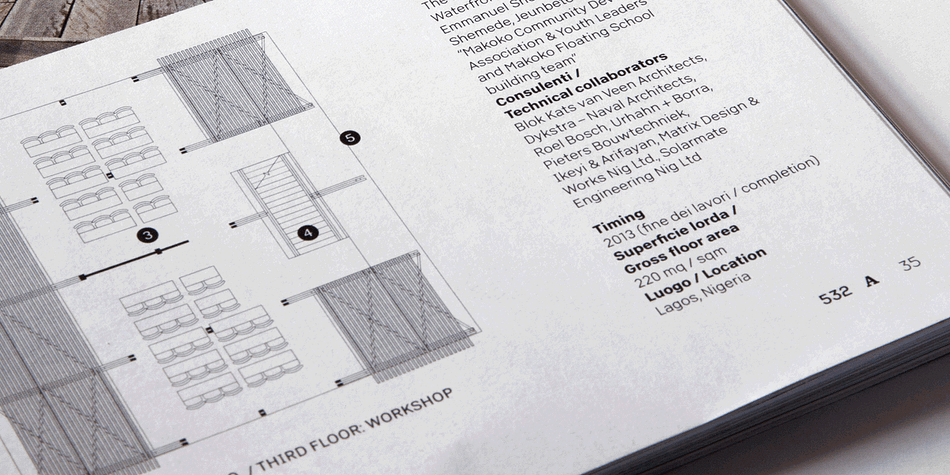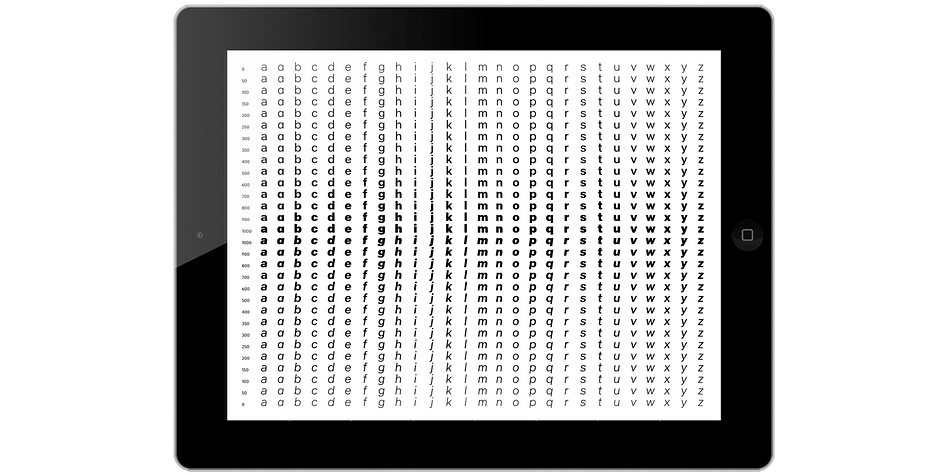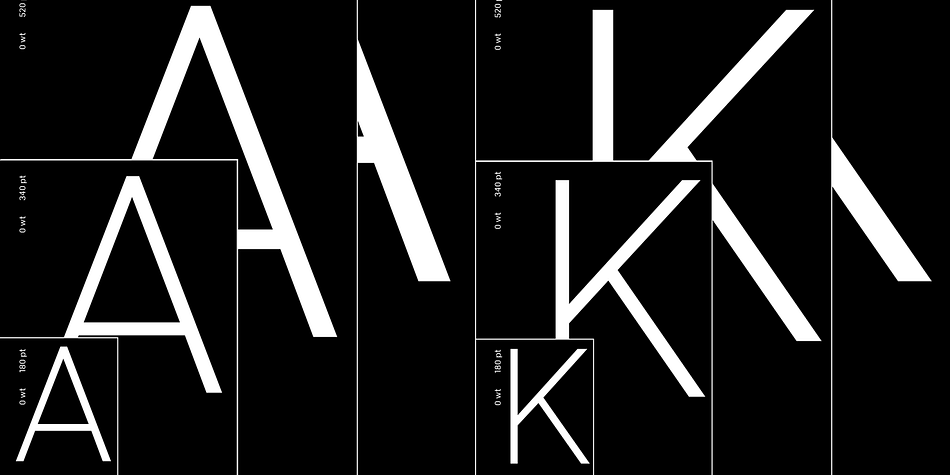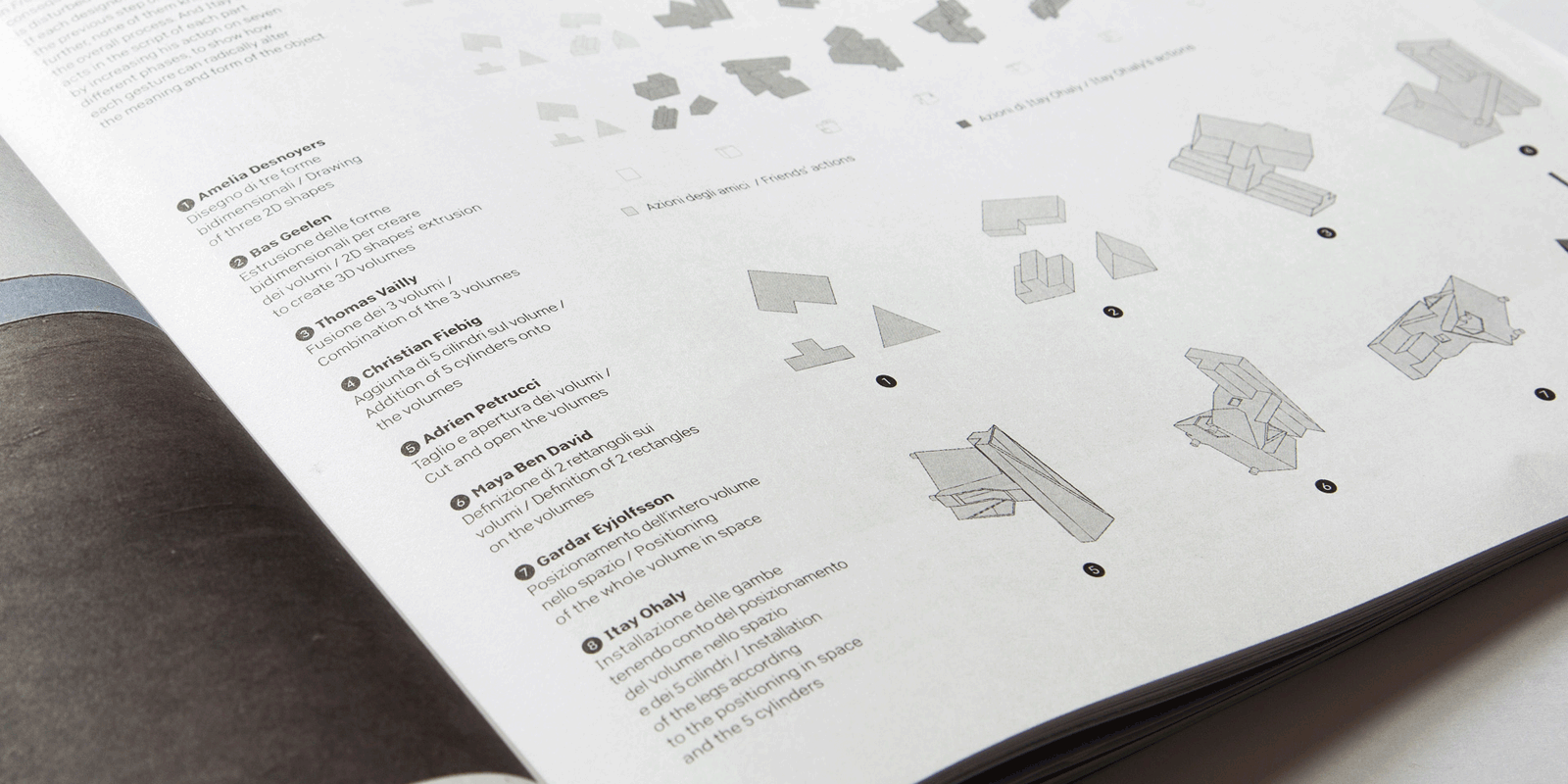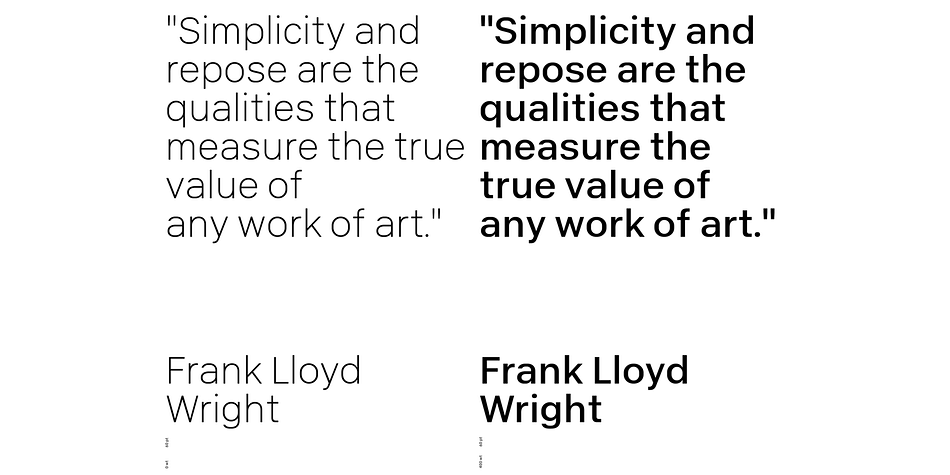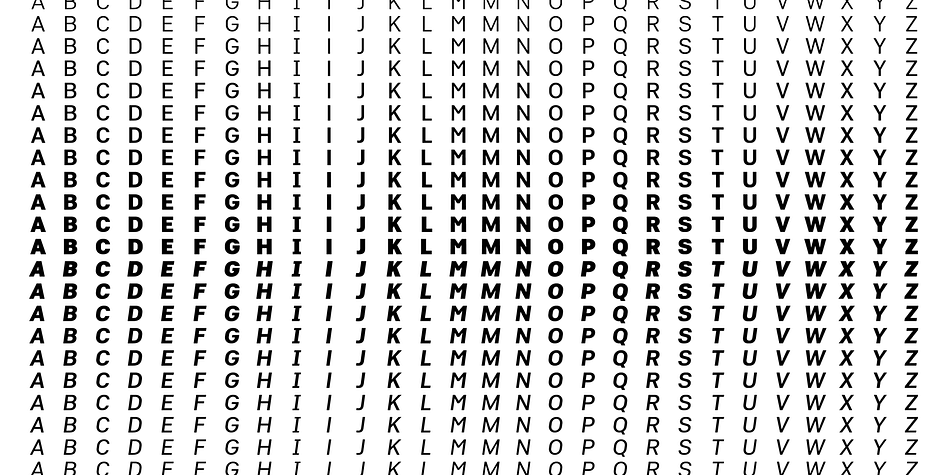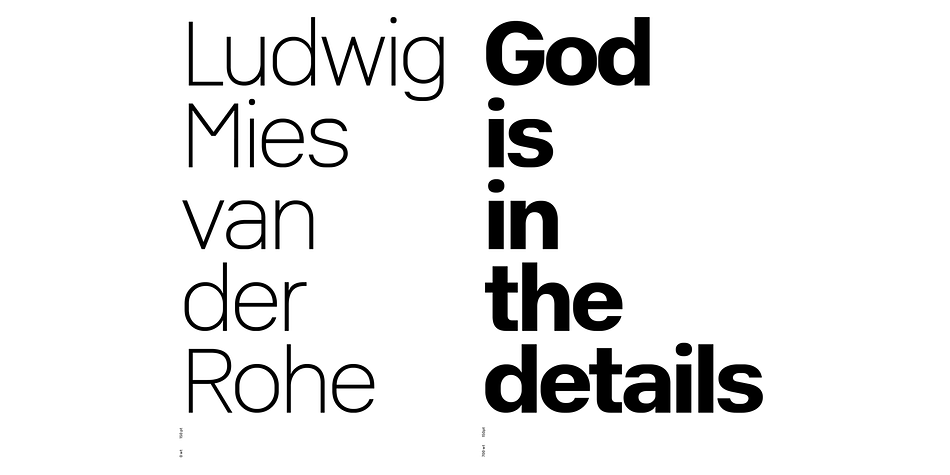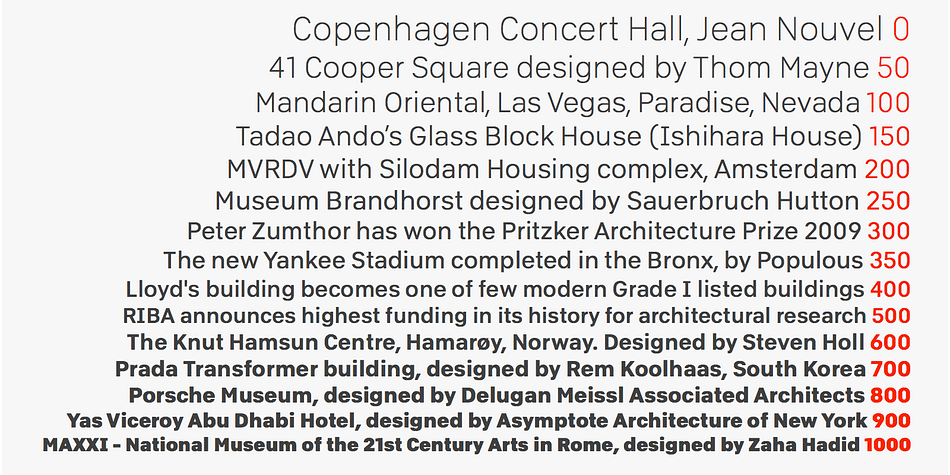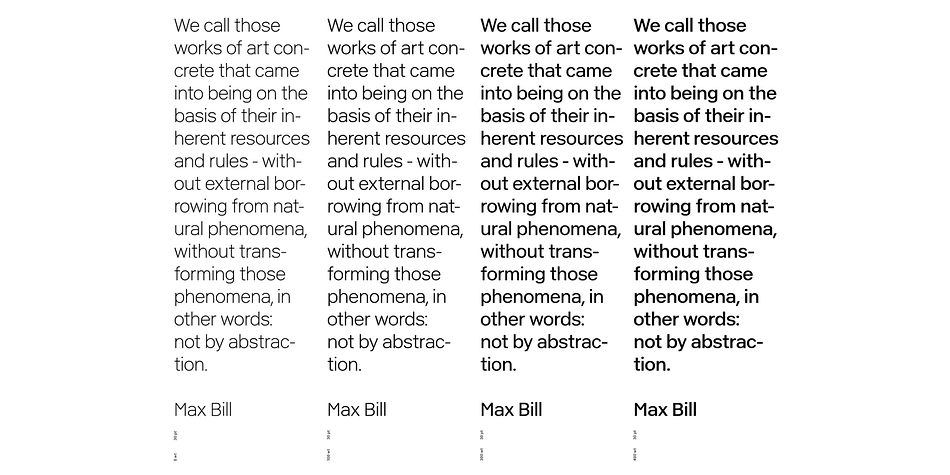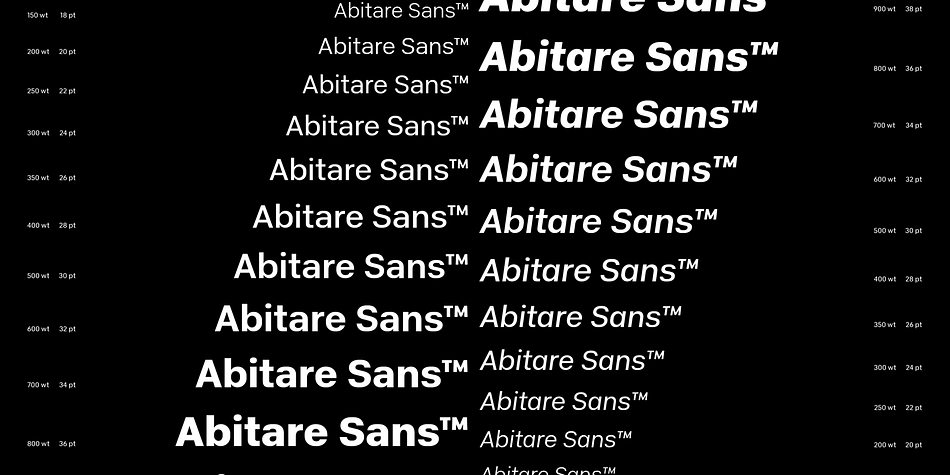
Abitare Sans
Designed by Fabrizio Schiavi, Abitare Sans is a sans serif font family. This typeface has thirty styles and was published by FSD.
Abitare Sans was originally commissioned by the group RCS Rizzoli Corriere della Sera in 2013. It’s a typeface of 30 weights designed to be used in Abitare magazine.
The request of the president Mario Piazza was a new CP Company™ with some redesigned glyphs, but the result is a radical evolution of its concept being intended to be used as a font for text far more readable.
In Abitare Sans was kept the geometric structure without neglecting the numerous editorials requirements.